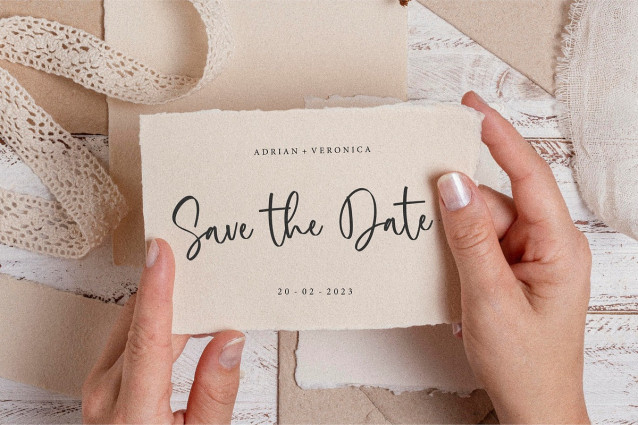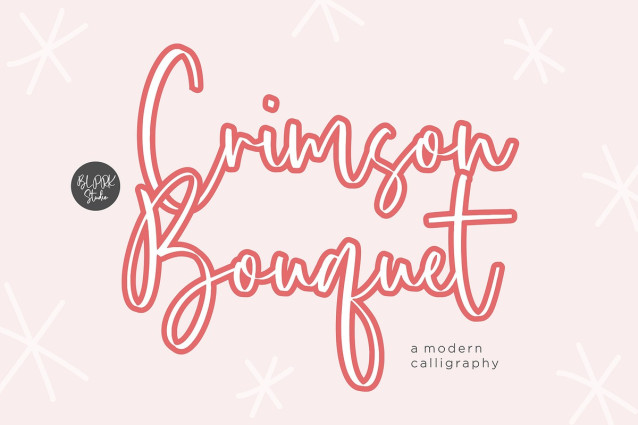
Crimson Bouquet Font
Crimson Bouquet Font is a Modern Calligraphy Font. Whether you’re using it for crafts, digital design, presentations, or making greeting cards, this font has the potential to become your favorite go-to font, no matter the occasion!